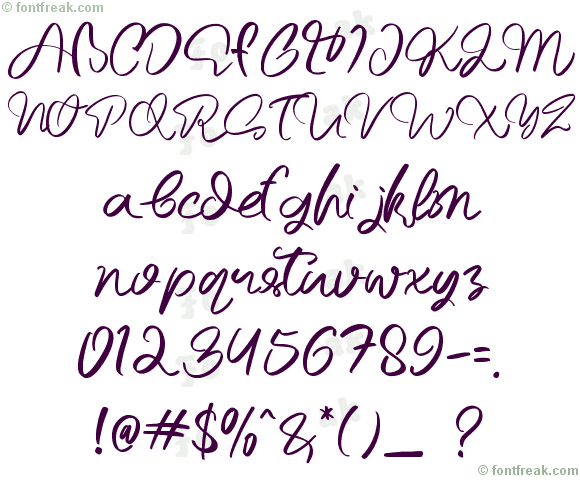
Queen Sea
The Queen Sea font, designed by Burhan Afif, is a stunning script typeface that captures the fluidity and elegance of handwritten lettering. Released in 2019, this font exemplifies a contemporary style while retaining a classic charm, making it a versatile choice for various design projects. It features a moderate stroke weight with gentle contrast, giving it a soft yet impactful appearance. The letterforms exhibit graceful curves and flowing connections, adding a touch of sophistication to any text. The spacing is balanced, ensuring readability while maintaining a stylish flow, making it suitable for both headlines and body text.
Queen Sea is ideal for a range of applications. Its elegant script style makes it perfect for wedding invitations, where it can convey romance and personal touch. Additionally, it shines in branding materials for boutique shops and cafes, creating a warm and inviting atmosphere. Graphic designers can leverage this font for social media graphics or promotional materials, capturing the attention of potential customers. Furthermore, it works well on greeting cards and event flyers, enhancing the overall aesthetic with its artistic flair.
The target audience for this font includes graphic designers, small business owners, and content creators looking to elevate their visual communication. Its unique style resonates with those who appreciate the beauty of handwritten typography and wish to incorporate that into their work.
What sets the Queen Sea font apart is its ability to blend elegance with versatility. The fluidity of its strokes and the distinctive design make it an exceptional choice for those seeking to make a lasting impression. For anyone interested in enhancing their design projects, the Queen Sea font free download offers an accessible opportunity to explore its creative potential.